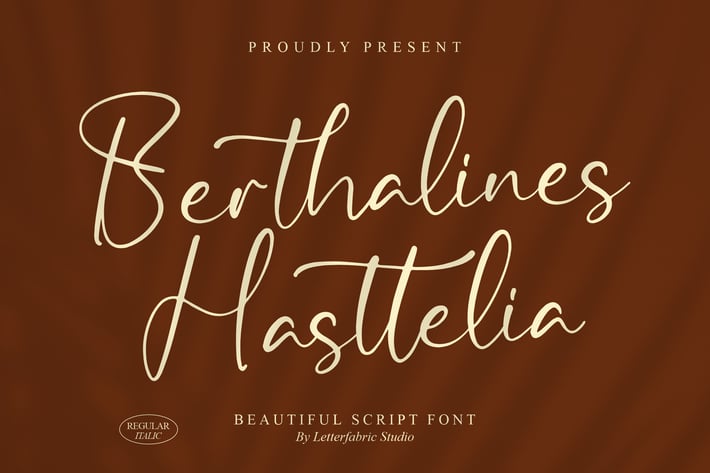
Berthalines Hasttelia Script Font
Berthlines Hasttelia is a beautiful calligraphy script font with elegant curves and sophisticated letterforms. Perfect for a wide range of creative projects, this font exudes class and style. Its flowing lines and refined details are ideal for branding, invitations, and social media posts, providing your designs with a personal touch that remains modern and stylish. Whether you’re designing wedding invitations, logos, or promotional materials, Berthlines Hasttelia adds a premium, hand-crafted feel to your work.
+ Elegant, flowing letterforms
+ Includes uppercase, lowercase, numerals & punctuation
+ Includes several stylistic alternates for added variety
Bring a refined, handwritten touch to your designs with Berthlines Hasttelia.